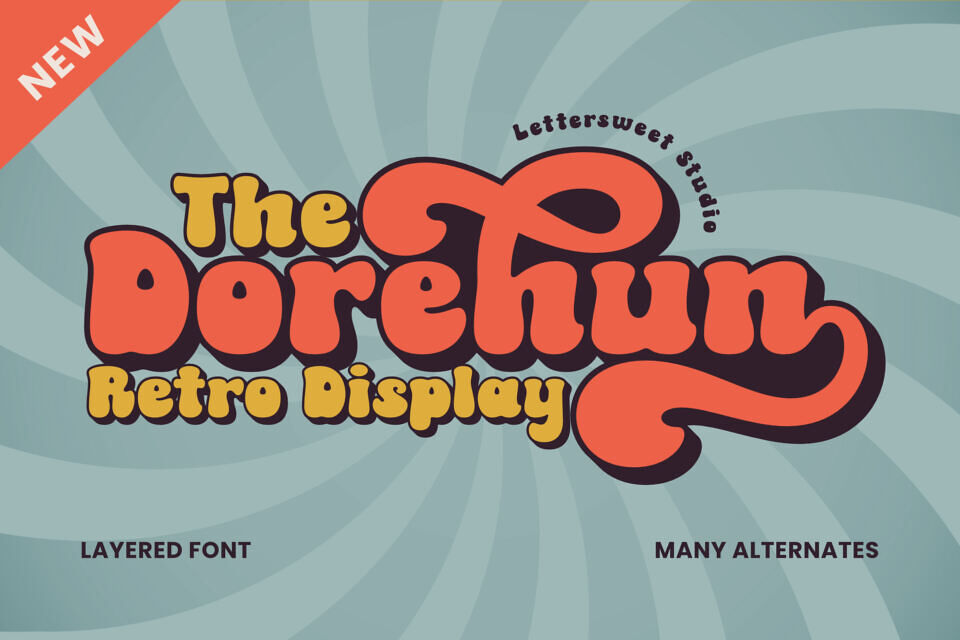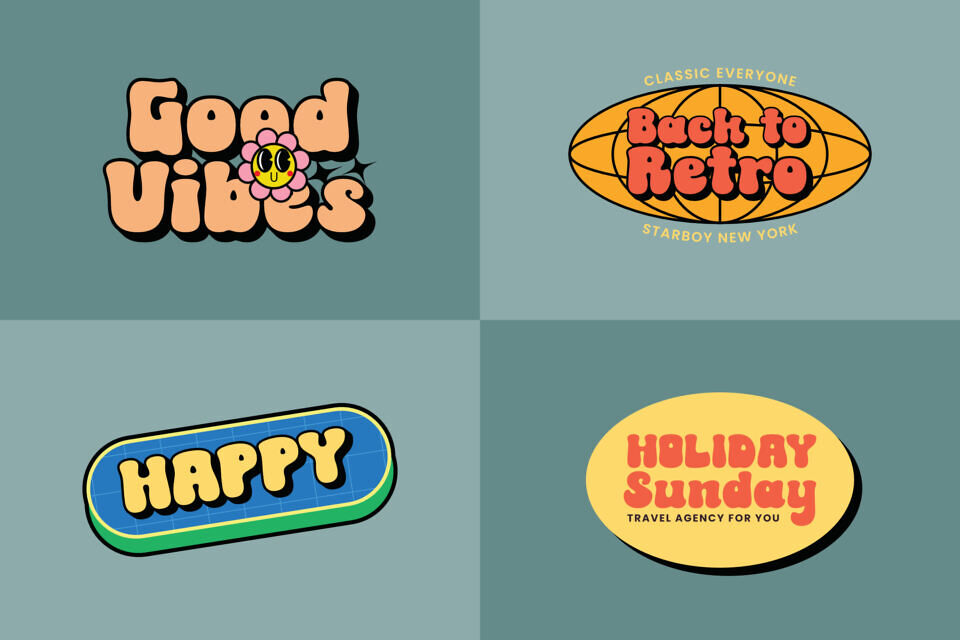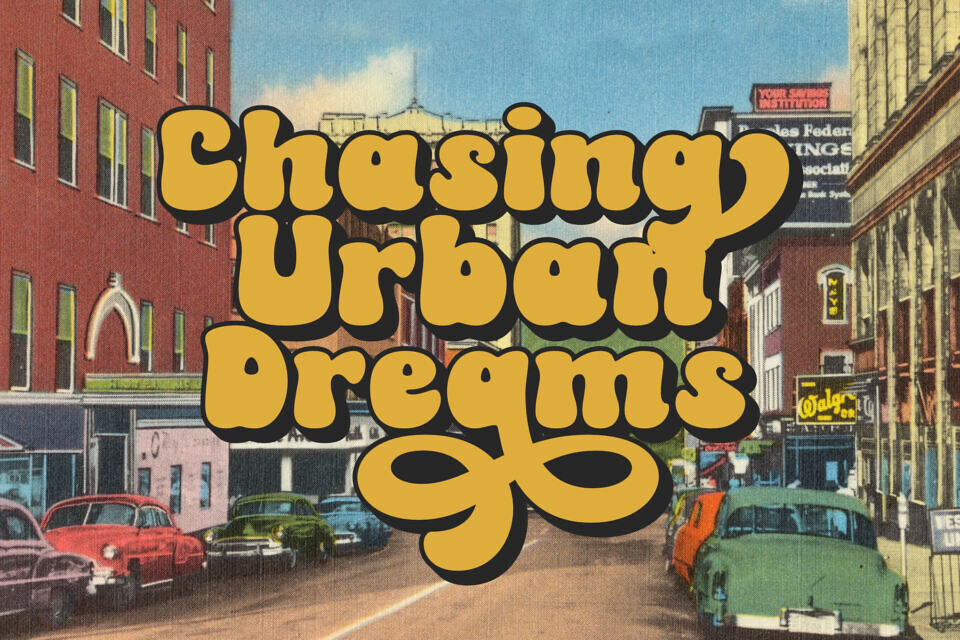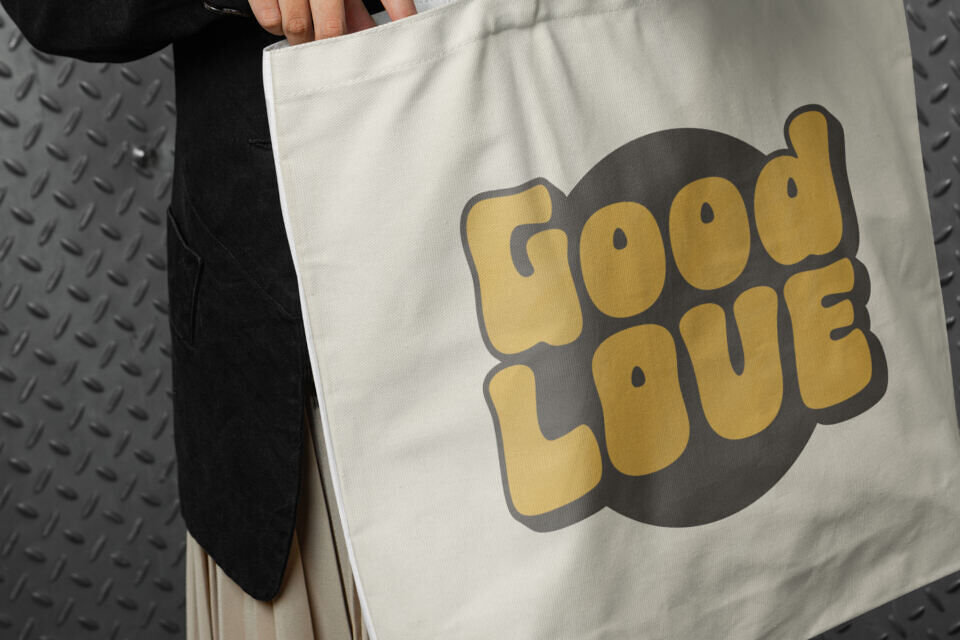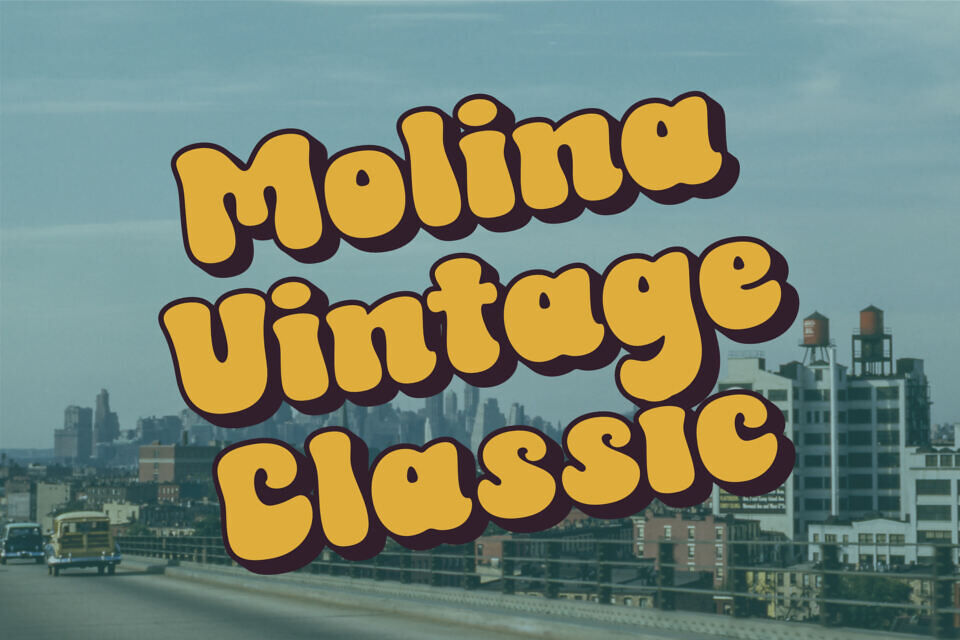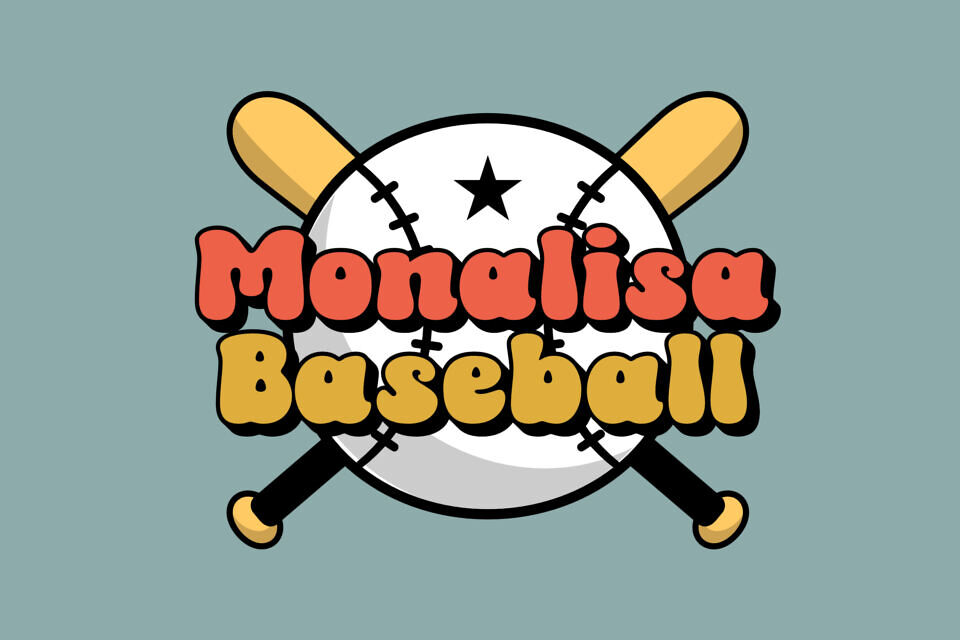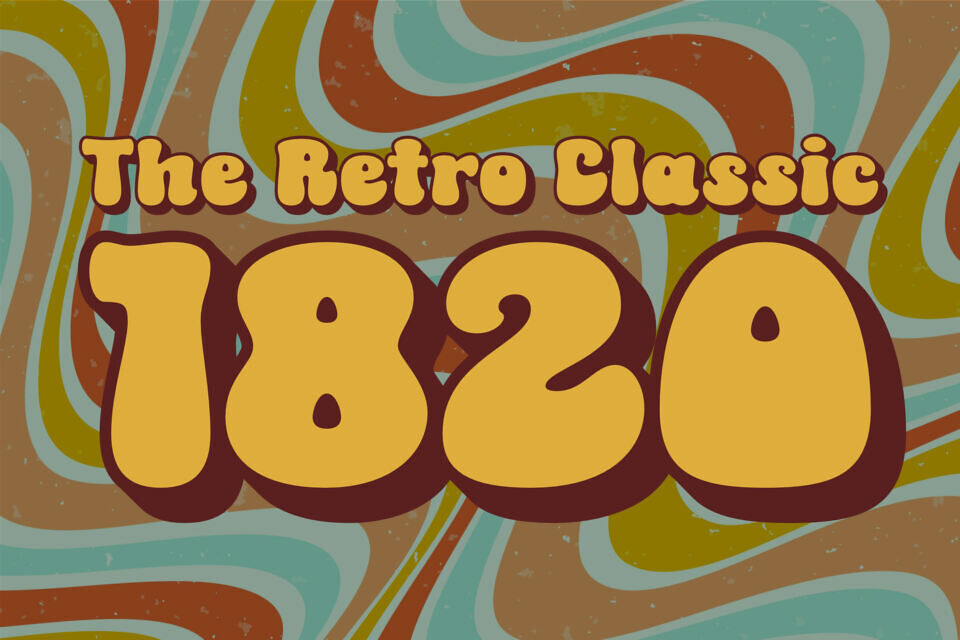
Take a trip back in time with Dorehun, a bold and playful retro font designed to bring the vibrant spirit of the 70s to your modern creative projects. This eye-catching layered font is packed with character, featuring curvy swashes, chunky letterforms, and plenty of alternates to keep your designs fresh and dynamic!
Perfect for creating vintage posters, funky album covers, eye-popping logos, and cheerful social media graphics, Dorehun adds a joyful and nostalgic flair wherever it’s used. Whether you’re going for a full-on retro vibe or just want to add a touch of boldness to your text, this font is here to deliver.